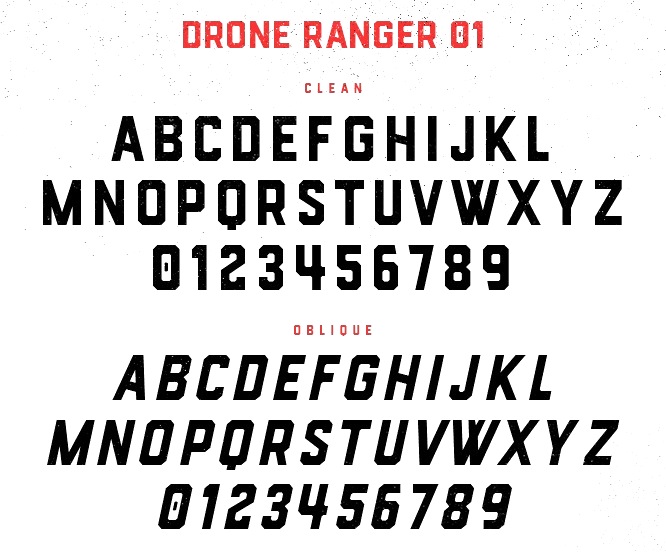
Sean Coady
Graphic designer from Summerside and/or Charlottetown, Prince Edward Island, Canada, who was located first in Edmonton, Alberta, and then in Moncton, NB. He runs SRC Designs. Creator of the free sans titling typeface family Municipal (2013) and of the hand-printed typeface Fruit Sale (2013).
In 2014, he created Shifty Sailor (spurred), Hofmann (psychedelic typeface), Kalopsia Slab (a condensed slab serif family with an arts-and-crafts flair). One weight is free---the others can be bought here. He also created free User Interface Icons in 2014.
Typefaces from 2015: Huxley (brush script), Drone Ranger, Authentico (vintage poster typeface in eight styles), Firefly (free poster font), Highbinder (an eroded vintage typeface), Adventurous Script (watercolor brush), Nomad Icon Font, Arctic Express (hand-crafted capitals).